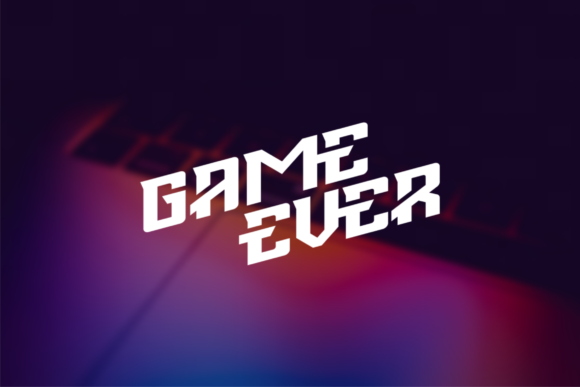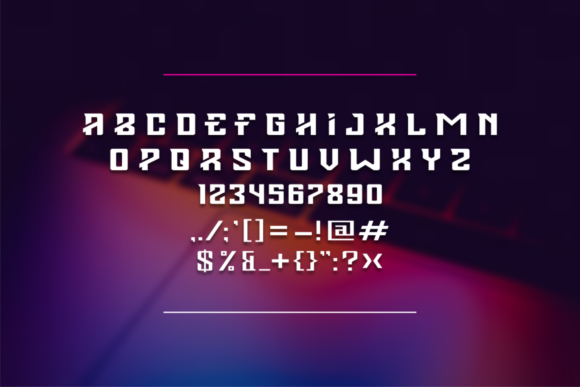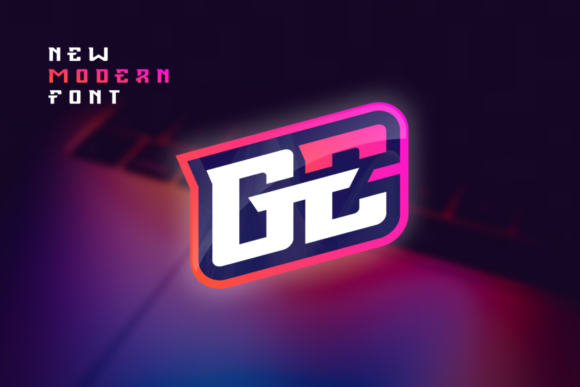
Introducing Genis Font: The Ultimate Display Font for Bold and Authentic Designs
In the world of typography, fonts play a crucial role in conveying the tone and personality of a brand. For designers and crafters, finding the perfect font that embodies the essence of their project can be a daunting task. However, if you’re looking for a bold and authentic display font that can elevate your branding projects, look no further than Genis Font.
What is Genis Font?
Genis Font is a stunning display font designed to make a statement. Its bold and authentic style makes it perfect for a wide range of applications, from logos and t-shirt printing to esport and more. With its unique character and versatility, Genis Font is sure to grab attention and leave a lasting impression.
Key Features of Genis Font
- Bold and Authentic Style: Genis Font boasts a bold and authentic style that exudes confidence and sophistication.
- Versatility: This font is suitable for various branding projects, including logos, t-shirt printing, esport, and more.
- Wide Range of Contexts: Genis Font will look outstanding in a wide range of contexts, making it a great addition to any designer’s toolkit.
Why Choose Genis Font?
With so many fonts available, why should you choose Genis Font for your next project? Here are a few compelling reasons:
- Unique Character: Genis Font has a distinct personality that sets it apart from other fonts.
- Ease of Use: This font is easy to read and understand, making it perfect for designs that require clear communication.
- Customization: Genis Font can be easily customized to fit your project’s specific needs.
Use Cases for Genis Font
Genis Font is an incredibly versatile font that can be used in a variety of contexts. Here are some use cases to get you started:
- Logo Design: Create a bold and memorable logo that showcases your brand’s personality.
- T-Shirt Printing: Design eye-catching t-shirts that make a statement with Genis Font.
- Esport: Add a touch of professionalism and sophistication to your esport designs.
- Branding: Use Genis Font to create a consistent brand image across all your marketing materials.
Tips for Using Genis Font
To get the most out of Genis Font, here are some tips to keep in mind:
- Pair with Other Fonts: Experiment with pairing Genis Font with other fonts to create a unique visual identity.
- Adjust Font Size: Adjust the font size to create visual hierarchy and emphasis.
- Play with Colors: Experiment with different colors to find the perfect combination that matches your brand’s tone.
In conclusion, Genis Font is an exceptional display font that can elevate your branding projects to the next level. Its bold and authentic style, versatility, and ease of use make it a great addition to any designer’s toolkit. Whether you’re designing a logo, t-shirt, or esport material, Genis Font is sure to make a statement. So why wait? Download Genis Font today and start creating stunning designs that leave a lasting impression!